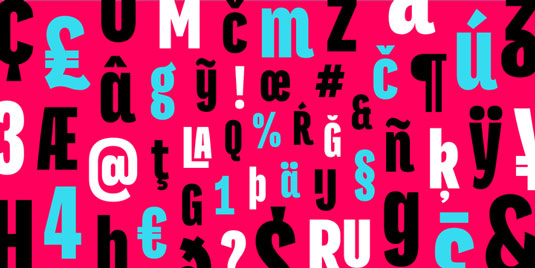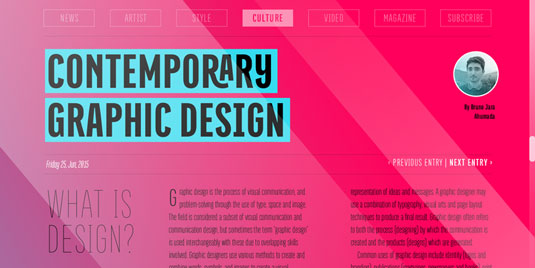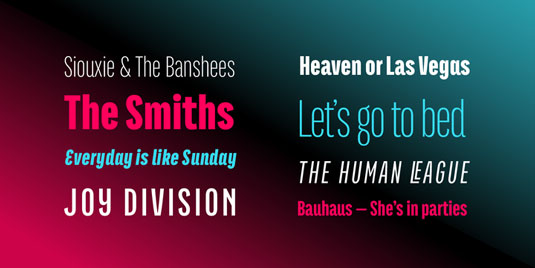
Font of the day: Titular
Each day of the week we showcase one of our favourite fonts – today it's Titular by Bruno Jara.
Titular by Bruno Jara
Today's typeface of choice, Titular, was created by Bruno Jara of Latinotype. A condensed, sans serif, Titular works well with headings, newspapers, magazines as well as with logotypes, brands and posters.